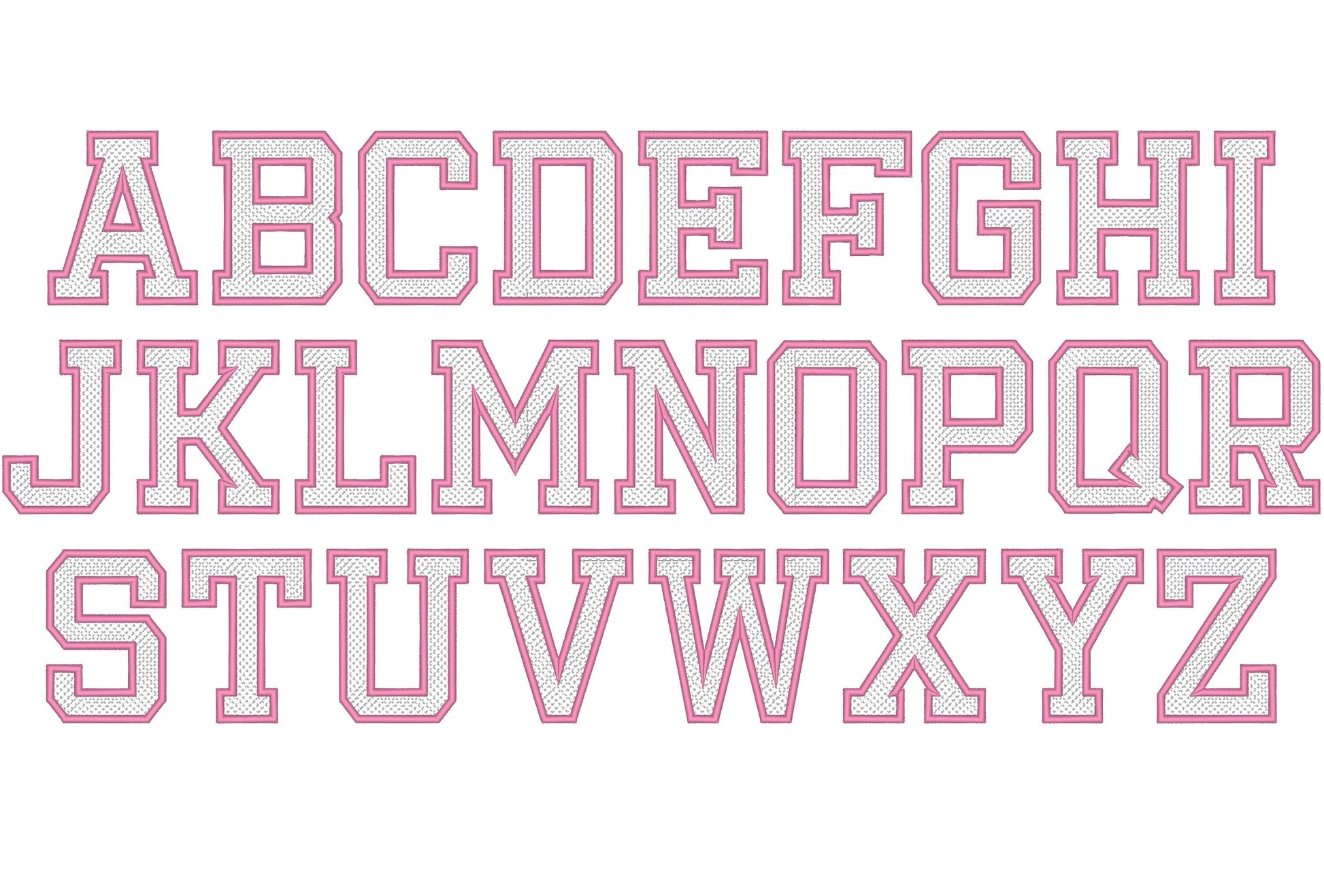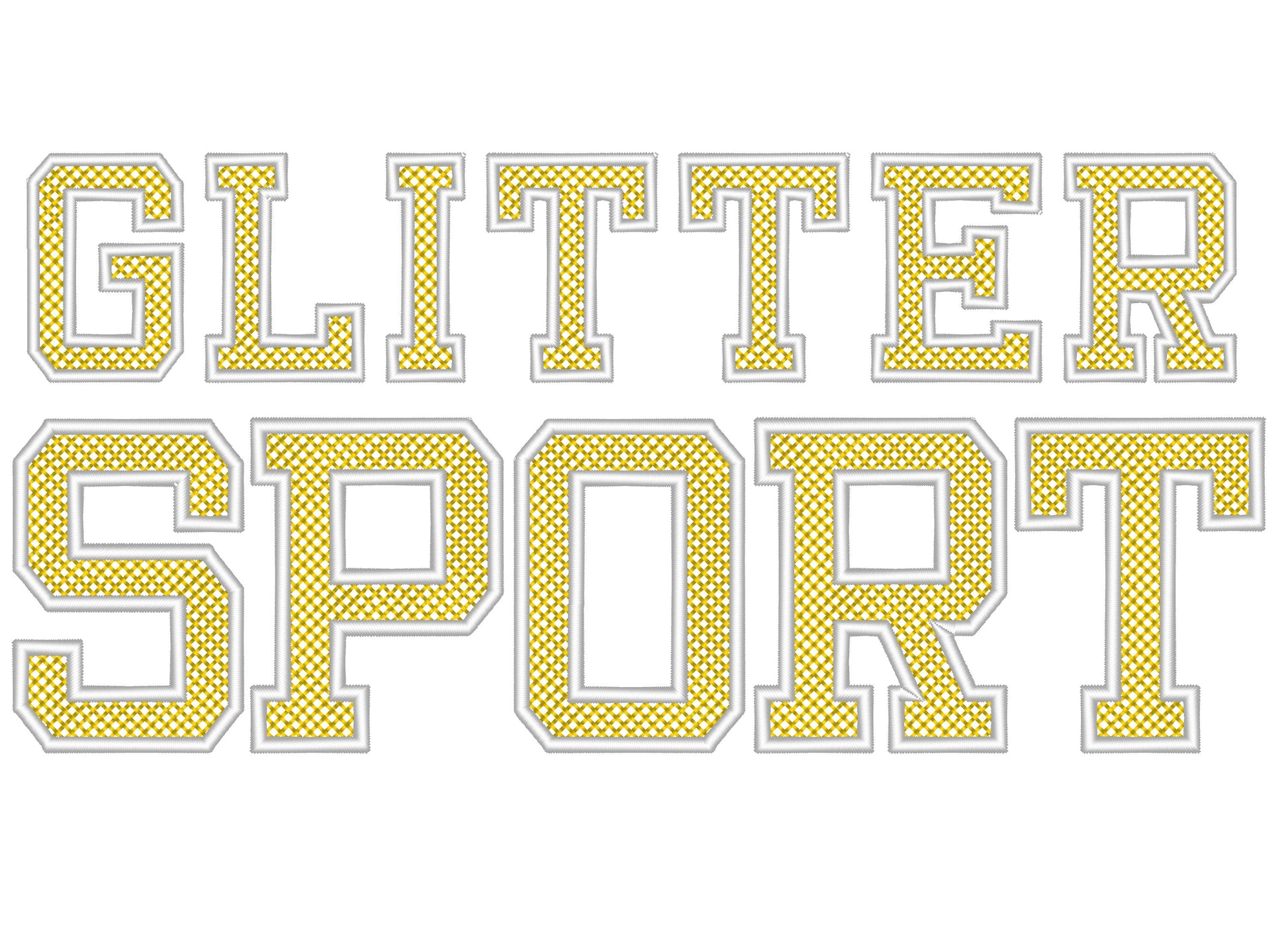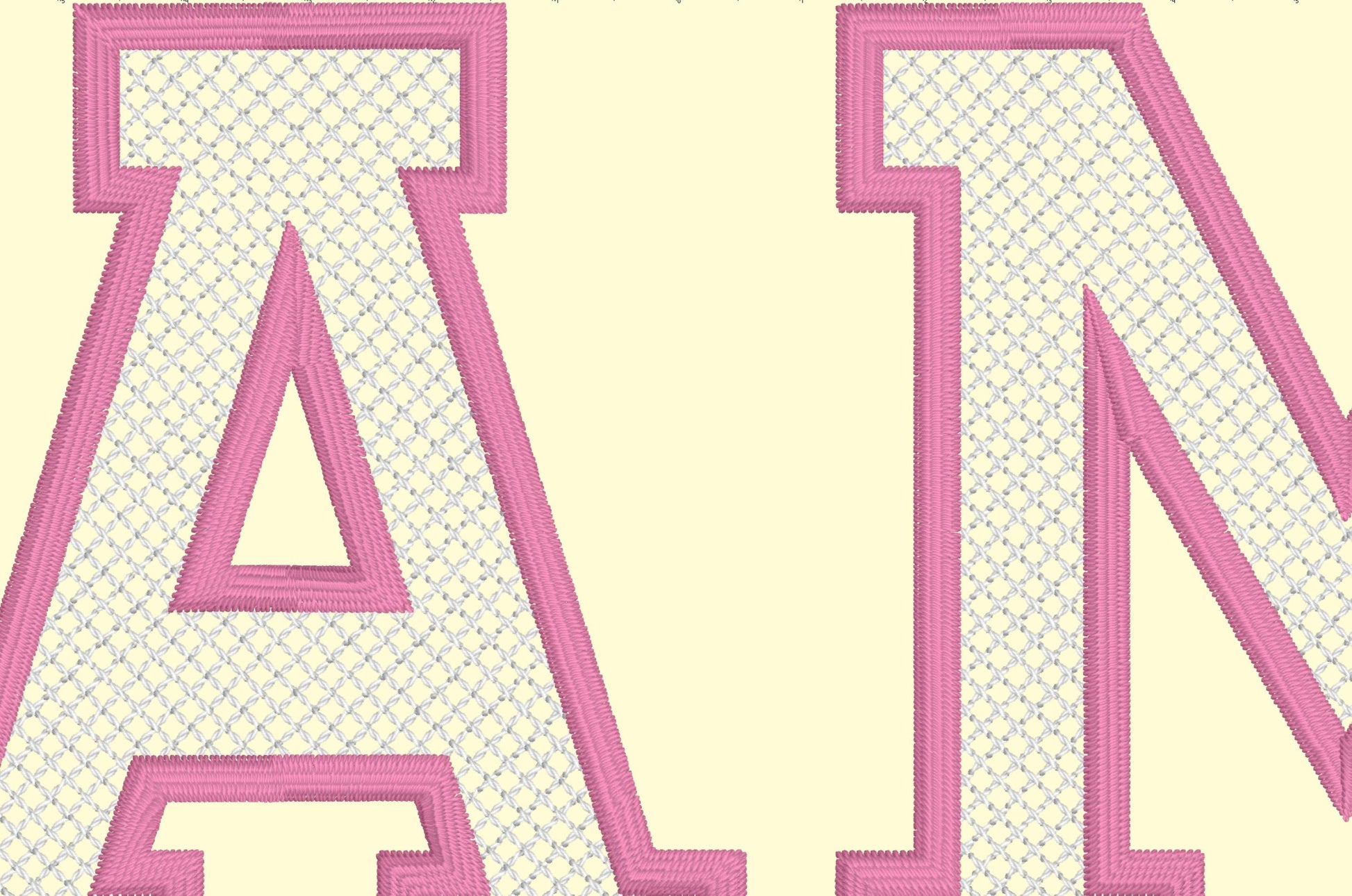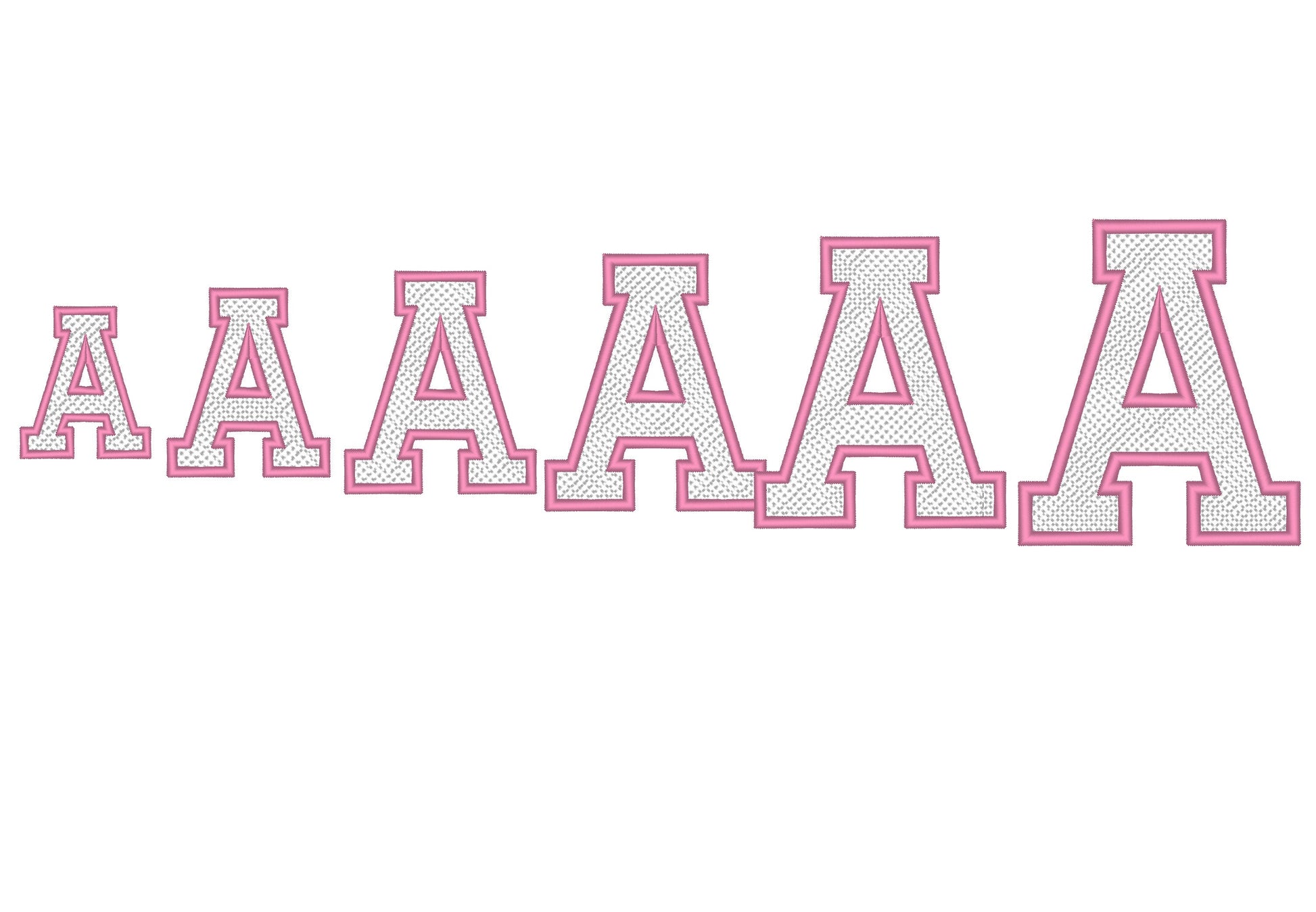
Diamond Quilt Glitter HTV Font
Or click to open the linkA varsity block font with a diamond quilted pattern and satin outline, made for glitter vinyl. Sparkly team names and numbers.
Stitch over glitter heat transfer vinyl, then press it on with a heat press or iron. Uppercase A to Z, numbers 0 to 9 and a slash in six sizes: 1.5, 2, 2.5, 3, 3.5 and 4 inches.
- Diamond quilt glitter vinyl varsity font
- Uppercase A-Z, numbers 0-9, /
- 6 sizes, 1.5 to 4 in